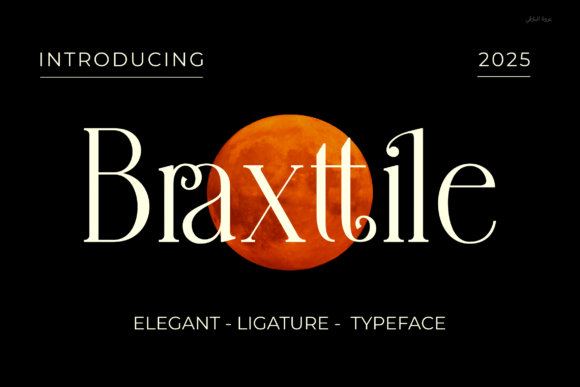
The Perfect Font for Timeless Elegance
Have you ever stared at a blank page, searching for the perfect font to bring your design to life? It’s a moment we’ve all experienced, and it’s what makes discovering the right font so thrilling. For designers, it’s not just about aesthetics – it’s about creating a lasting impression that resonates with our audience.
Enter Braxttile Font, a modern and elegant serif font that embodies the perfect blend of sophistication and classic charm. Designed to elevate your designs, Braxttile Font is the ideal choice for logos, branding, websites, and advertisements that demand a professional and polished touch. With its proportional letterforms and functional ligatures, Braxttile Font is a valuable addition to any designer’s toolkit, offering elegance, legibility, and versatility that’s hard to resist.
Whether you’re working on a luxury brand, an online store, or a corporate magazine, Braxttile Font is the perfect asset to guarantee your designs make a lasting impression.
Braxttile Font Key Features
- Font Family: Braxttile is a unique, custom-designed font family with multiple styles, including serif, sans-serif, and script options.
- Character Set: Supports a wide range of languages, including Latin, Cyrillic, and Greek alphabets, with over 1,000 glyphs per style.
- Font Size: Available in various sizes, including small caps, titling, and display fonts, making it ideal for headings, titles, and body text.
- Unique Characteristics: Braxttile features a distinctive, hand-drawn aesthetic with organic flourishes, giving it a warm and inviting feel.
Braxttile Font Review
Overall, I’m quite impressed with the Braxttile Font, especially for its creative and modern design. ✨ Here are some things that stand out to me:
- Unique typography: The font’s eclectic style is perfect for designers looking to add a touch of whimsy to their projects.
- Variety of weights: The font family includes a range of weights, from light to bold, making it versatile for different design applications.
- Good legibility: Despite its unconventional design, the font is still easy to read, even at smaller font sizes.
- Limited language support: The font may not be suitable for projects requiring extensive language support, as it’s primarily designed for Latin-based languages.
- Not ideal for small text: While the font is legible, it may not be the best choice for small text or body copy, where a more traditional font might be more effective.
- May not appeal to all audiences: The font’s unconventional design may not appeal to all users, particularly those who prefer more conservative typography.
Overall, I’d give the Braxttile Font 4 out of 5 stars. It’s a great choice for designers looking to add some creativity and personality to their projects, but it may not be the best fit for every design application.
Braxttile Font Guide
Using Braxttile Font Effectively
To get the most out of the Braxttile font, follow these tips:
- Use it for headings and titles to add a touch of modernity.
- Pair it with bold or italic weights to create visual interest.
- Experiment with font sizes to create a hierarchy of information.
Common Use Cases for Braxttile Font
The Braxttile font is suitable for:
- Modern website designs.
- Corporate branding and marketing materials.
- Graphic design and visual identity projects.
Alternatives to Braxttile Font
Montserrat is a modern sans-serif font designed by Julieta Ulanovsky. It is ideal for use in digital products, websites, and mobile applications where a clean and minimalist aesthetic is desired. Montserrat is more versatile than Braxttile Font, with a larger character set and more font weights available.
Comparison to Braxttile Font: Montserrat has a more geometric and minimalist design, whereas Braxttile Font has a more rounded and playful feel. Montserrat is also more suitable for body text, while Braxttile Font is often used for headings and titles.
Open Sans is a clean and modern sans-serif font designed by Steve Matteson. It is ideal for use in digital products, websites, and mobile applications where a clear and readable font is desired. Open Sans is more versatile than Braxttile Font, with a larger character set and more font weights available.